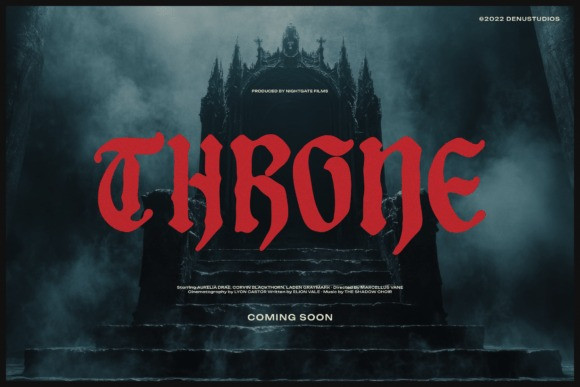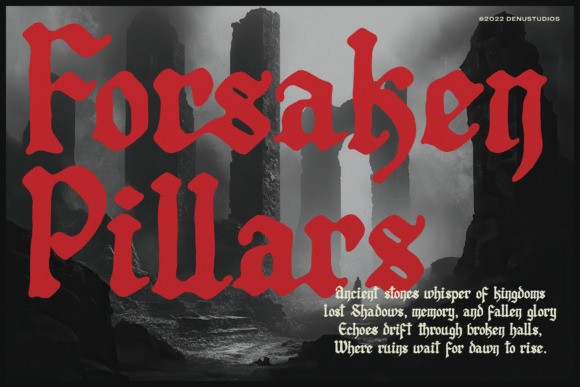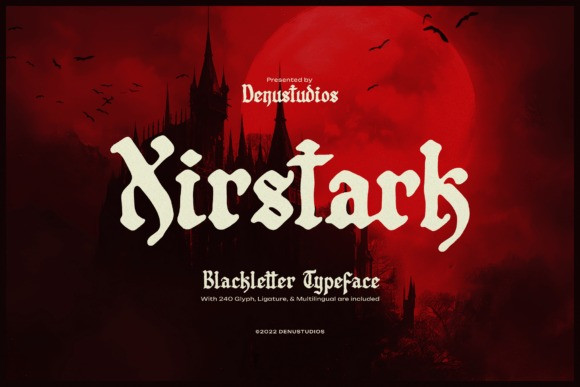
Xirstark Font
Xirstark Font is an edgy blackletter font suitable for any projects such as: logos, branding projects, homeware designs, product packaging, mugs, quotes, posters, shopping bags, t-shirts, book covers, name card, invitation cards, greeting cards, label, photography, watermark, special events, and all your other lovely projects that need a Blackletter taste.